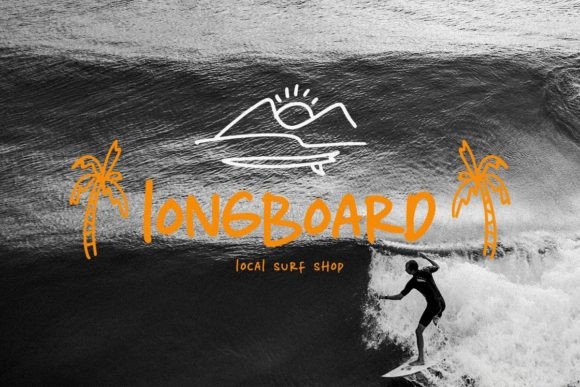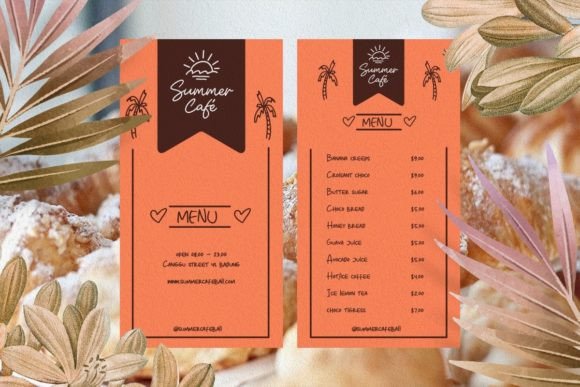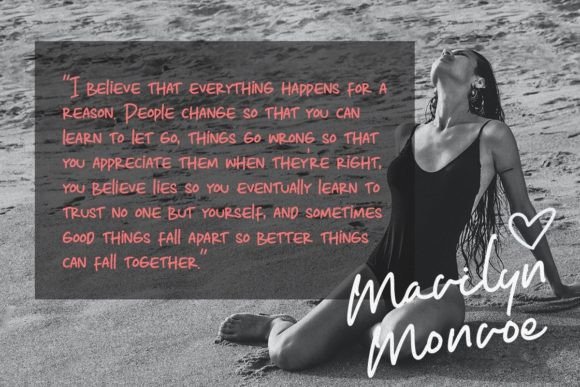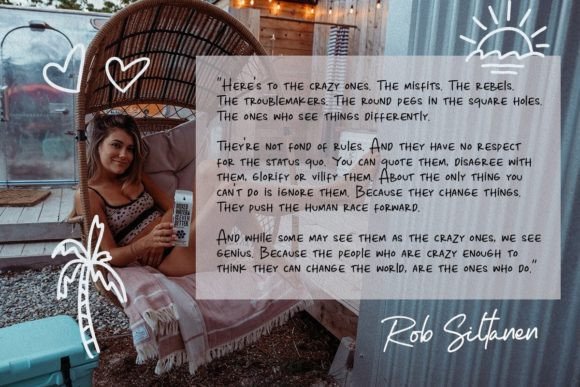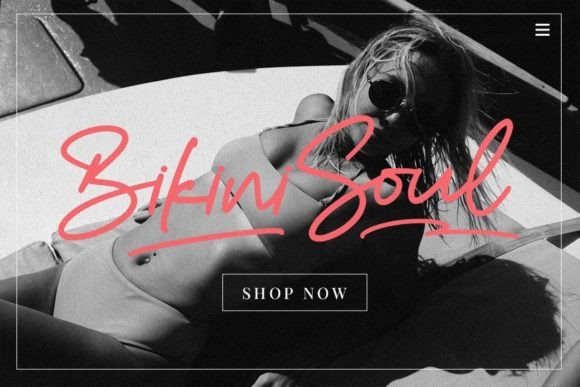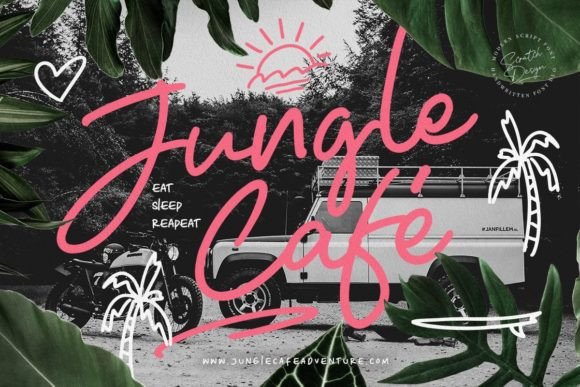
Introducing Breeder Font: A Playful Handwritten Script for Your Designs
Are you looking for a unique and playful font to add a personal touch to your designs? Look no further than Breeder Font, a beautiful handwritten script that’s perfect for a variety of creative projects. In this article, we’ll explore the features and benefits of Breeder Font, and show you how to make the most of this versatile typeface.
What is Breeder Font?
Breeder Font is a handwritten script font that’s designed to bring a natural, effortless feel to your designs. With its flowing lines and playful curves, this font is perfect for adding a touch of personality to your work. Whether you’re creating a logo, menu design, social media post, or packaging, Breeder Font is a great choice.
Key Features of Breeder Font
So, what makes Breeder Font so special? Here are just a few of its key features:
- Natural signature script: Breeder Font has a natural, handwritten feel that’s perfect for creating authentic and engaging designs.
- Upper and lowercase characters: This font includes both upper and lowercase characters, giving you the flexibility to create a wide range of designs.
- Numerals and punctuation: Breeder Font also includes numerals and punctuation, making it a versatile choice for a variety of projects.
- Ligature and stylistic alternate: With ligature and stylistic alternate options, you can add an extra touch of personality to your designs.
- Swashes and multi-language support: Breeder Font also includes swashes and supports multiple languages, making it a great choice for international designs.
- Doodles and bonus features: As a bonus, Breeder Font includes doodles and other fun features to help you add a playful touch to your designs.
Uses for Breeder Font
So, what can you use Breeder Font for? The possibilities are endless! Here are a few ideas to get you started:
- Logos and branding: Breeder Font is a great choice for creating unique and memorable logos and branding materials.
- Menu design: Add a personal touch to your menu design with Breeder Font’s playful and flowing script.
- Social media posts: Use Breeder Font to create eye-catching social media posts that stand out from the crowd.
- Packaging and product design: Breeder Font is perfect for adding a touch of personality to your packaging and product design.
- Posters and flyers: Create eye-catching posters and flyers with Breeder Font’s bold and playful script.
- Name cards and birthday cards: Use Breeder Font to create personalized name cards and birthday cards that are sure to impress.
Tips for Using Breeder Font
Here are a few tips for getting the most out of Breeder Font:
- Experiment with different sizes and colors: Breeder Font looks great in a variety of sizes and colors, so don’t be afraid to experiment and find the perfect combination for your design.
- Use it with other fonts: Breeder Font pairs well with a variety of other fonts, so try combining it with other typefaces to create a unique and interesting design.
- Take advantage of ligatures and swashes: Breeder Font’s ligatures and swashes can add an extra touch of personality to your designs, so be sure to use them to create a more dynamic and interesting design.
Breeder Font is a versatile and playful handwritten script that’s perfect for a wide range of creative projects. With its natural signature script, upper and lowercase characters, numerals and punctuation, and bonus features like ligatures and swashes, this font has everything you need to create unique and engaging designs. Whether you’re a designer, crafter, or DIY enthusiast, Breeder Font is a great choice for adding a personal touch to your work.